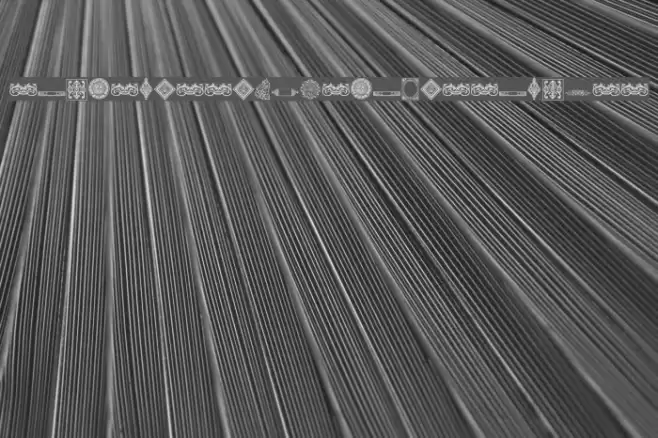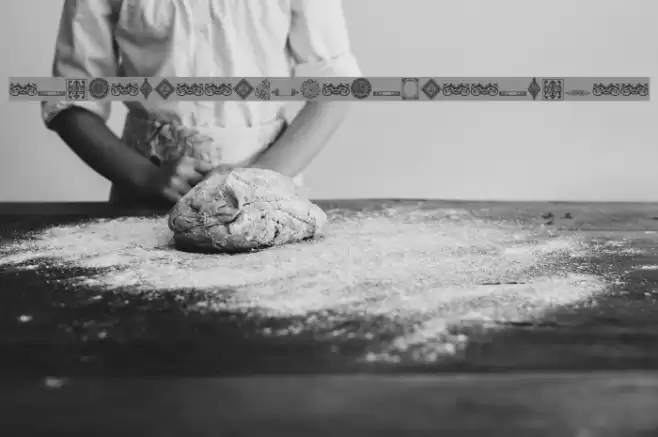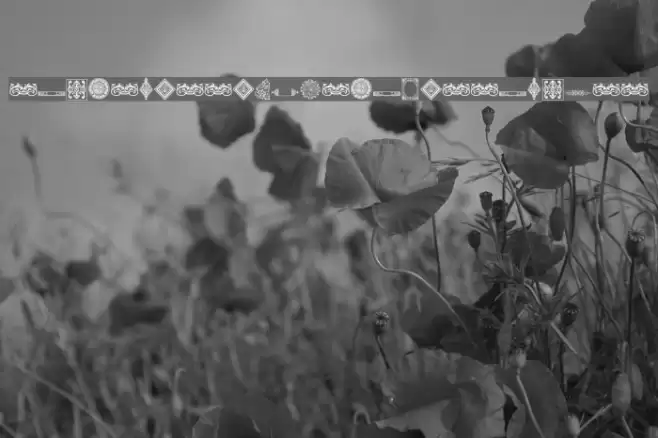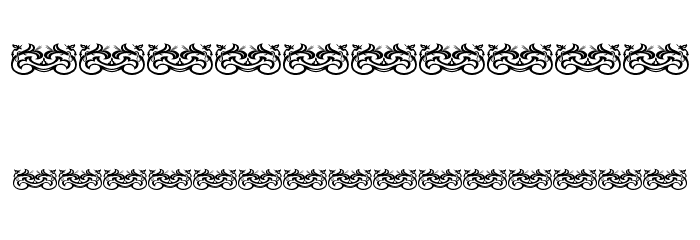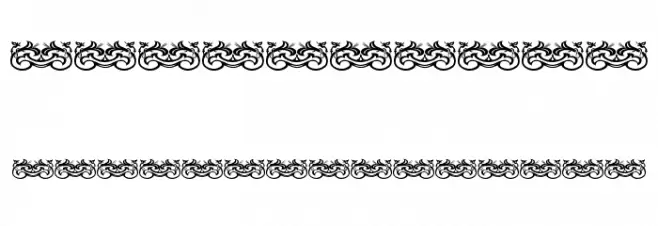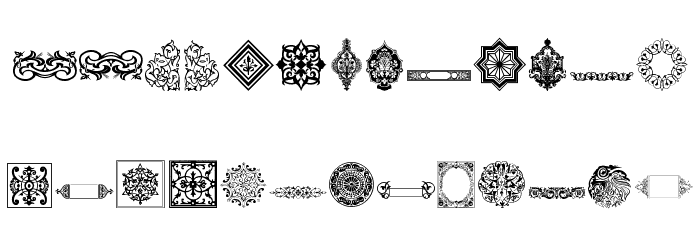
Vintage Decorative Signs 7 Font
Vintage Decorative Signs 7 Description
This collection features a series of intricate, vintage-inspired decorative signs and borders. The designs are highly detailed, showcasing ornate patterns that are reminiscent of classic architectural elements and traditional motifs. Each element is crafted with precision, offering a sense of elegance and sophistication. The borders are repetitive and symmetrical, ideal for framing or embellishing projects. The individual signs present a variety of shapes and styles, from floral to geometric, each with its own unique flair. These designs are perfect for adding a touch of historical charm to any creative work.
Intricate vintage-inspired decorative signs and borders with ornate patterns from Dingbats fonts.
- Proposed Projects: Ideal for use in wedding invitations, vintage-themed posters, decorative book covers, and antique-style packaging.
- Overall Style: Vintage
- Use Case: Decorative elements, Borders, Embellishments